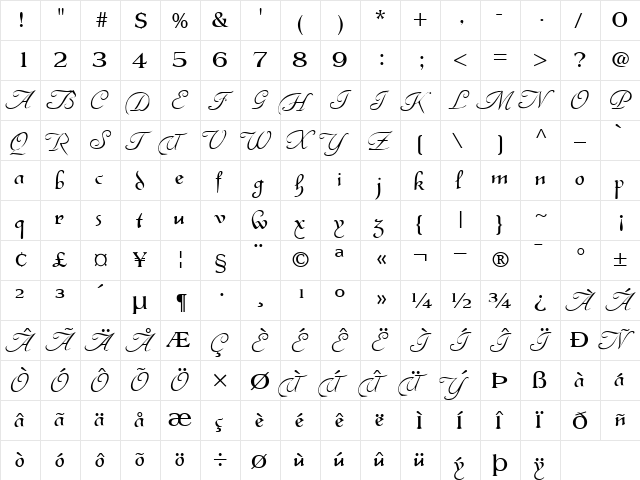
Inovator Regular
Design Context for Inovator Typeface
Inovator is a composed and adaptable typeface that performs quietly and consistently across a wide range of design contexts.